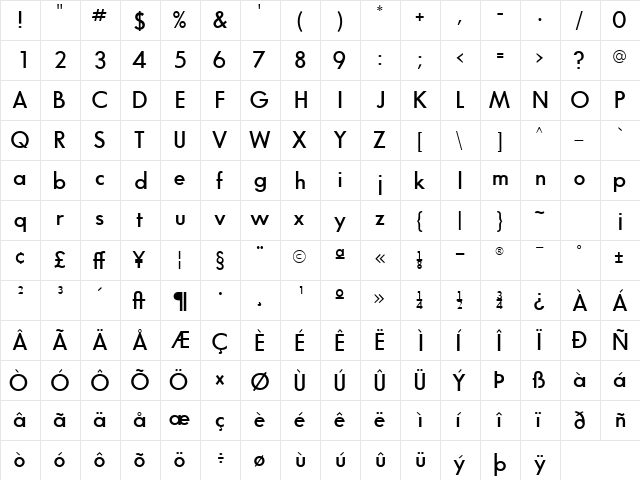
BouganSSK SemiBold
Design Context for BouganSSK Typeface
BouganSSK is a composed and adaptable typeface that performs quietly and consistently across a wide range of design contexts. The heavy weight commands attention and anchors typographic hierarchies.